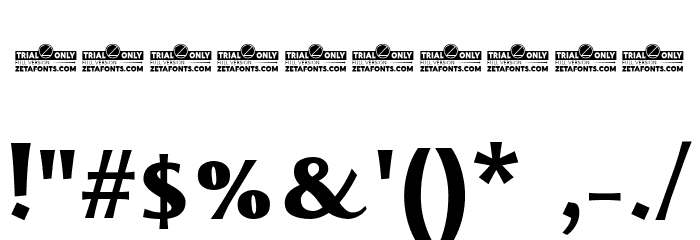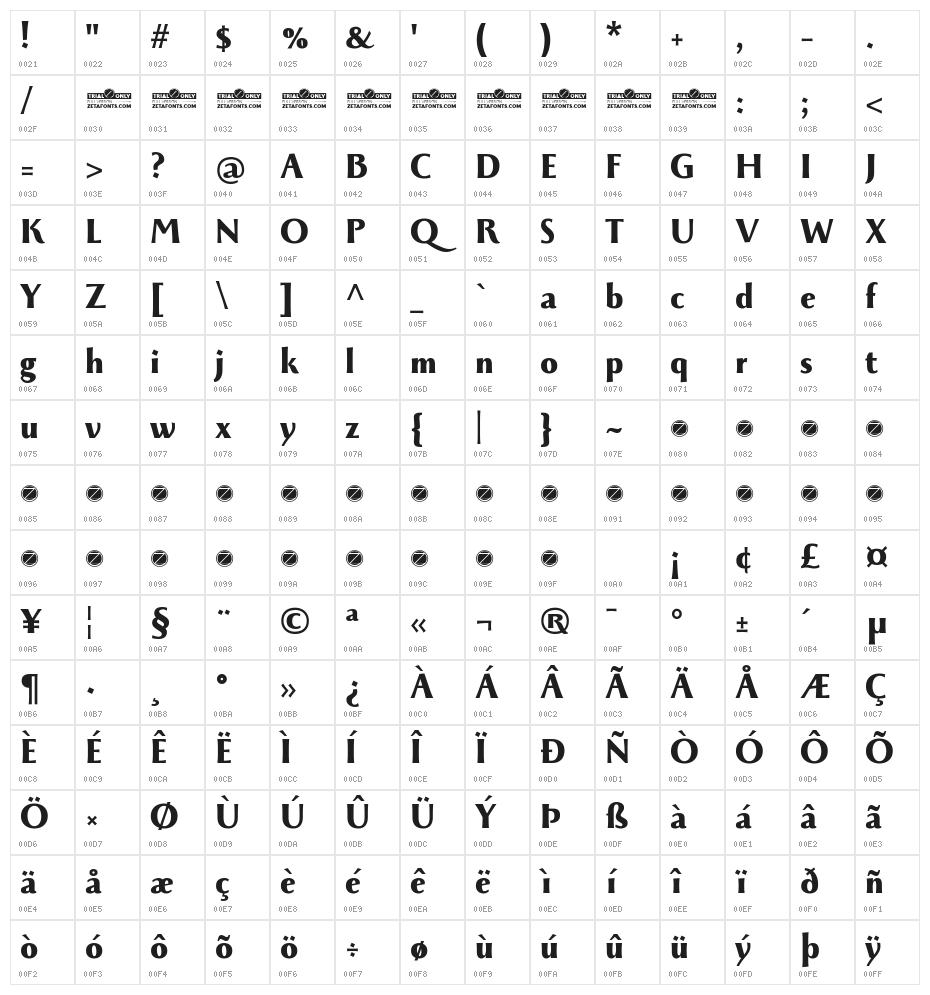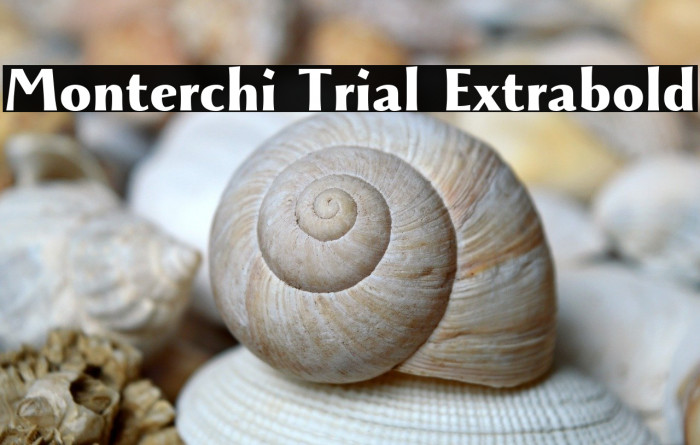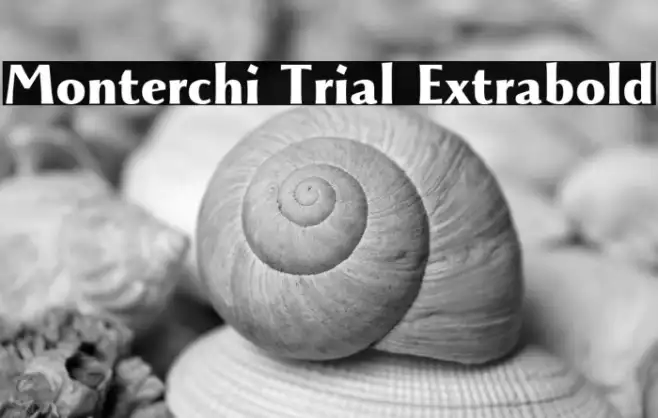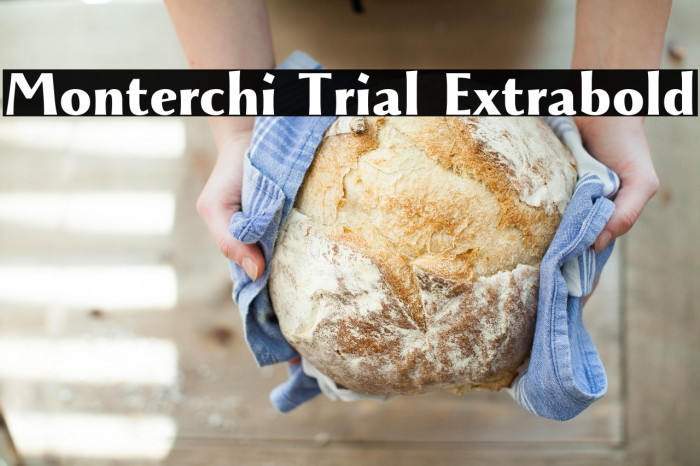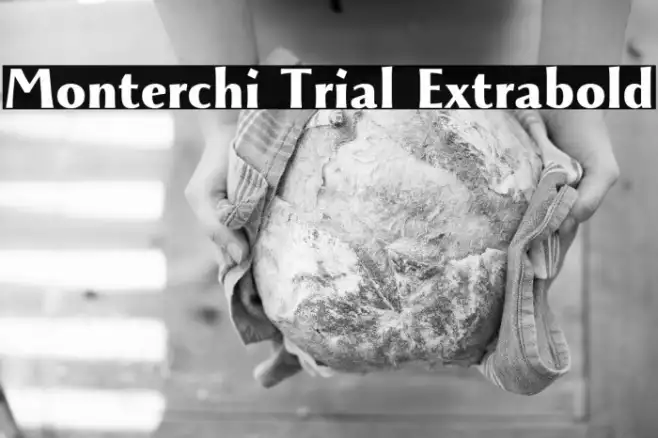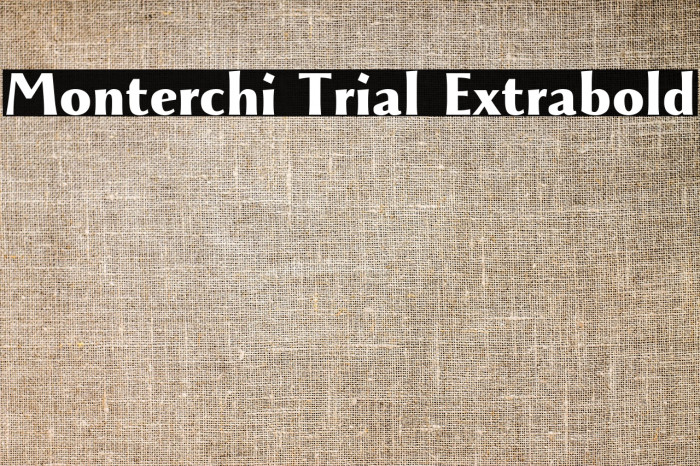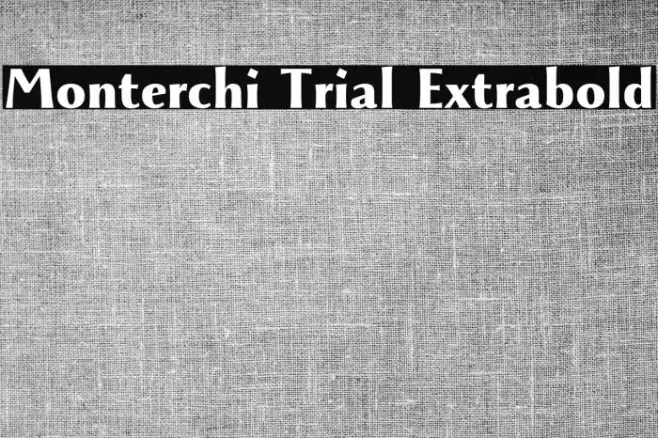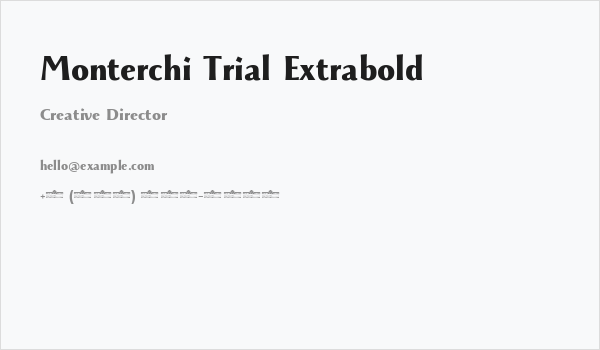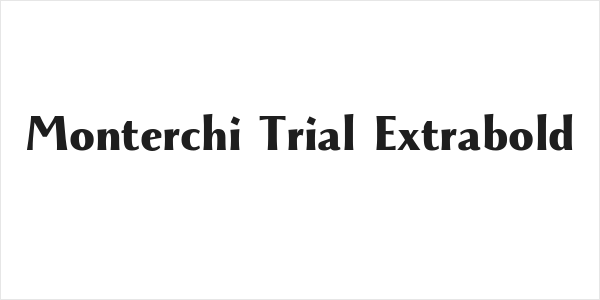
Monterchi Trial Extrabold Font
Monterchi Trial Extrabold Description
This font exhibits a bold and dynamic presence with its thick strokes and slightly curved serifs. The uppercase letters are robust and commanding, while the lowercase letters maintain a consistent weight, offering a harmonious balance. The font's design features a high contrast between thick and thin strokes, adding to its dramatic flair. The special characters are crafted with the same attention to detail, ensuring a cohesive look across all glyphs. Its overall style is both modern and classic, making it versatile for various design needs.
| Overall Style | Modern, Classic |
| Proposed Projects | Ideal for branding, headlines, posters, and editorial design where a strong, impactful font is needed. |